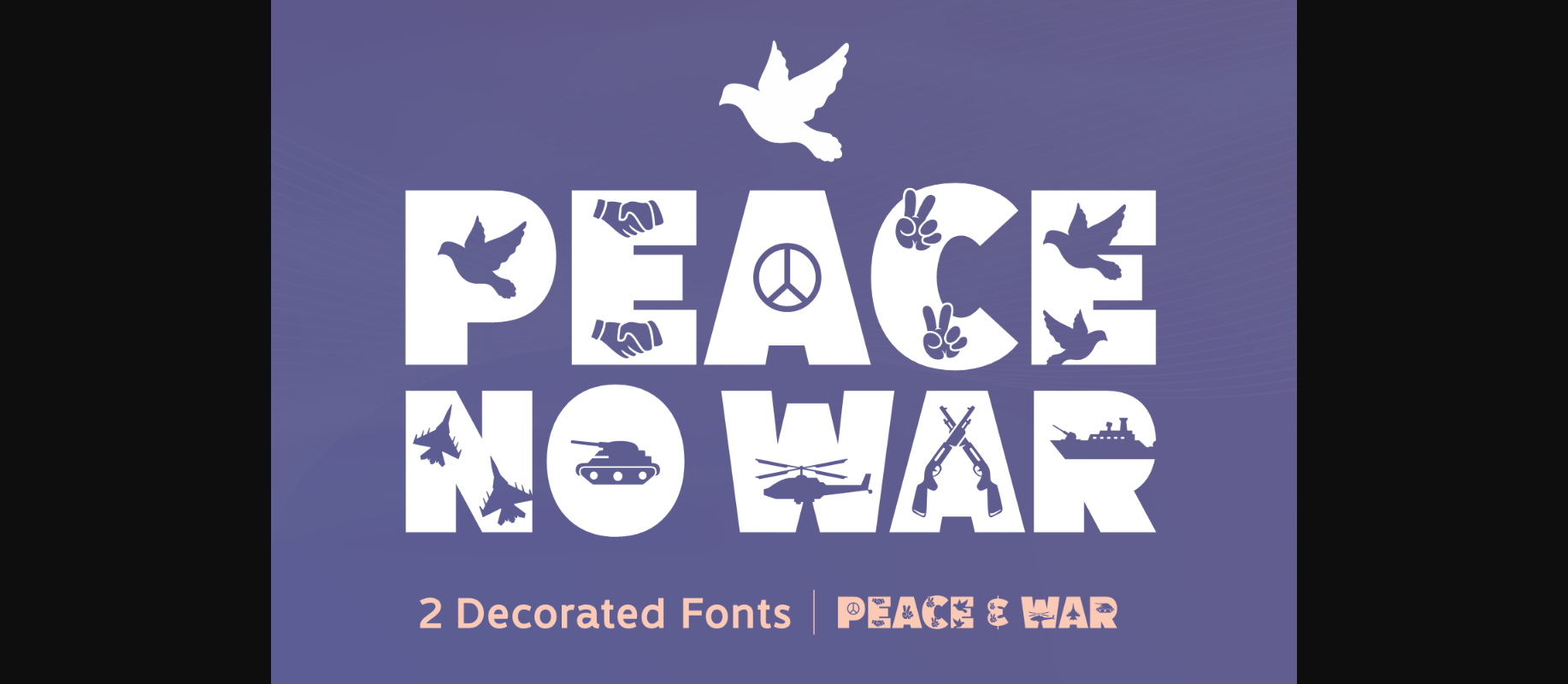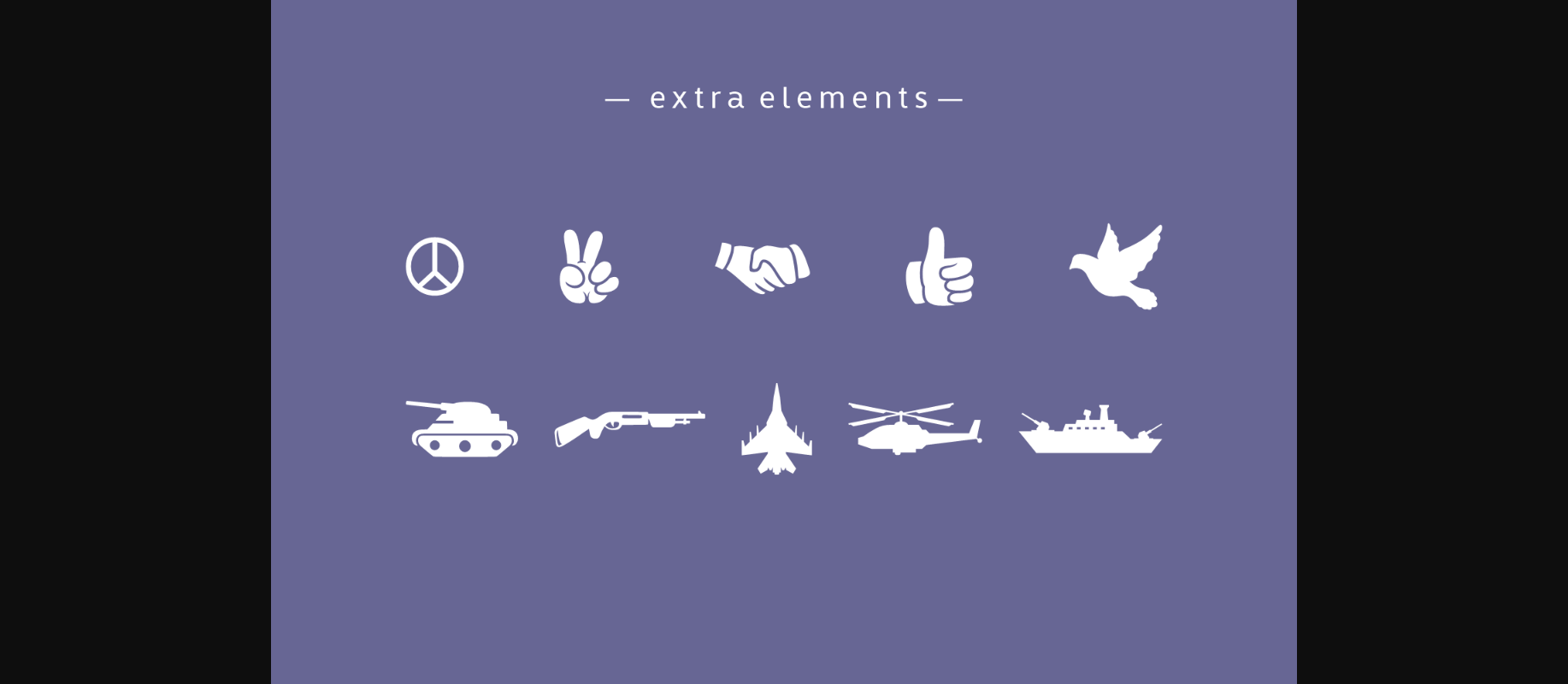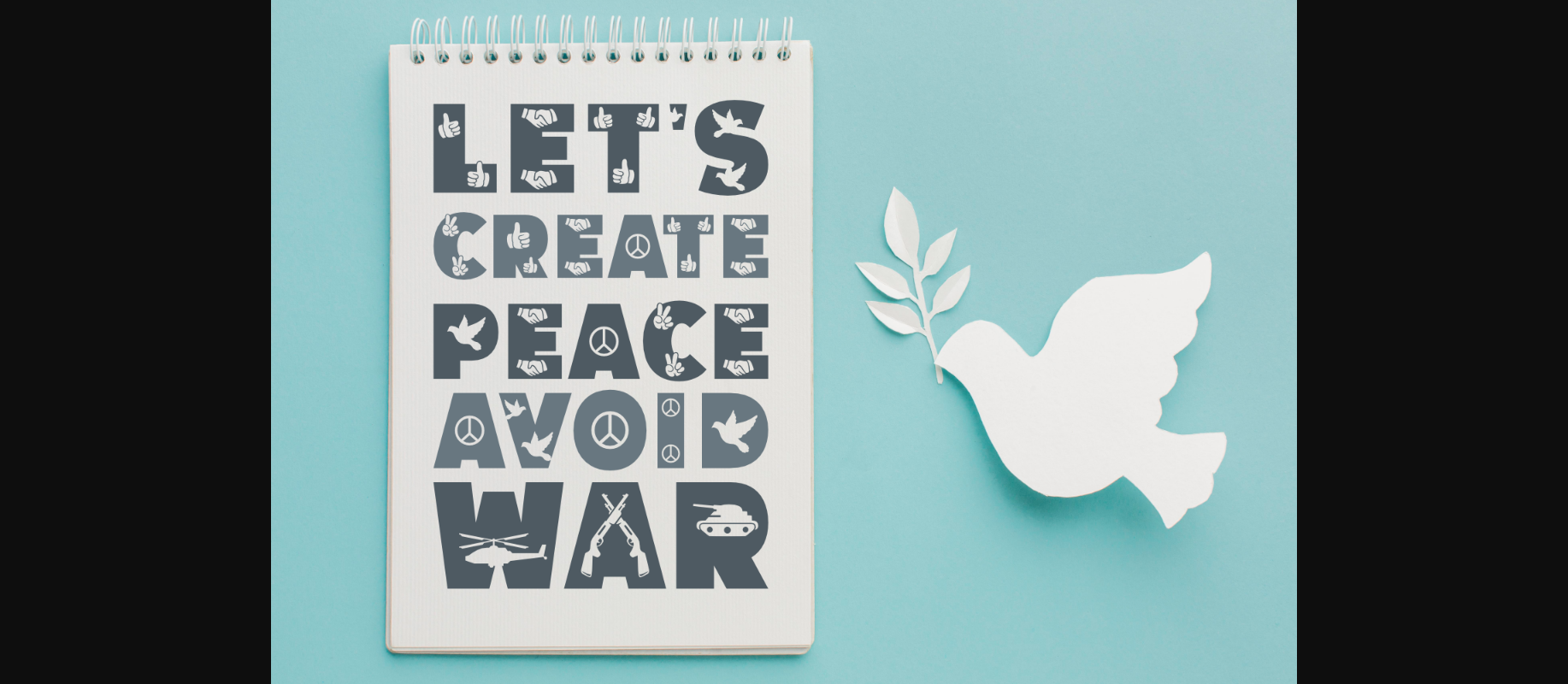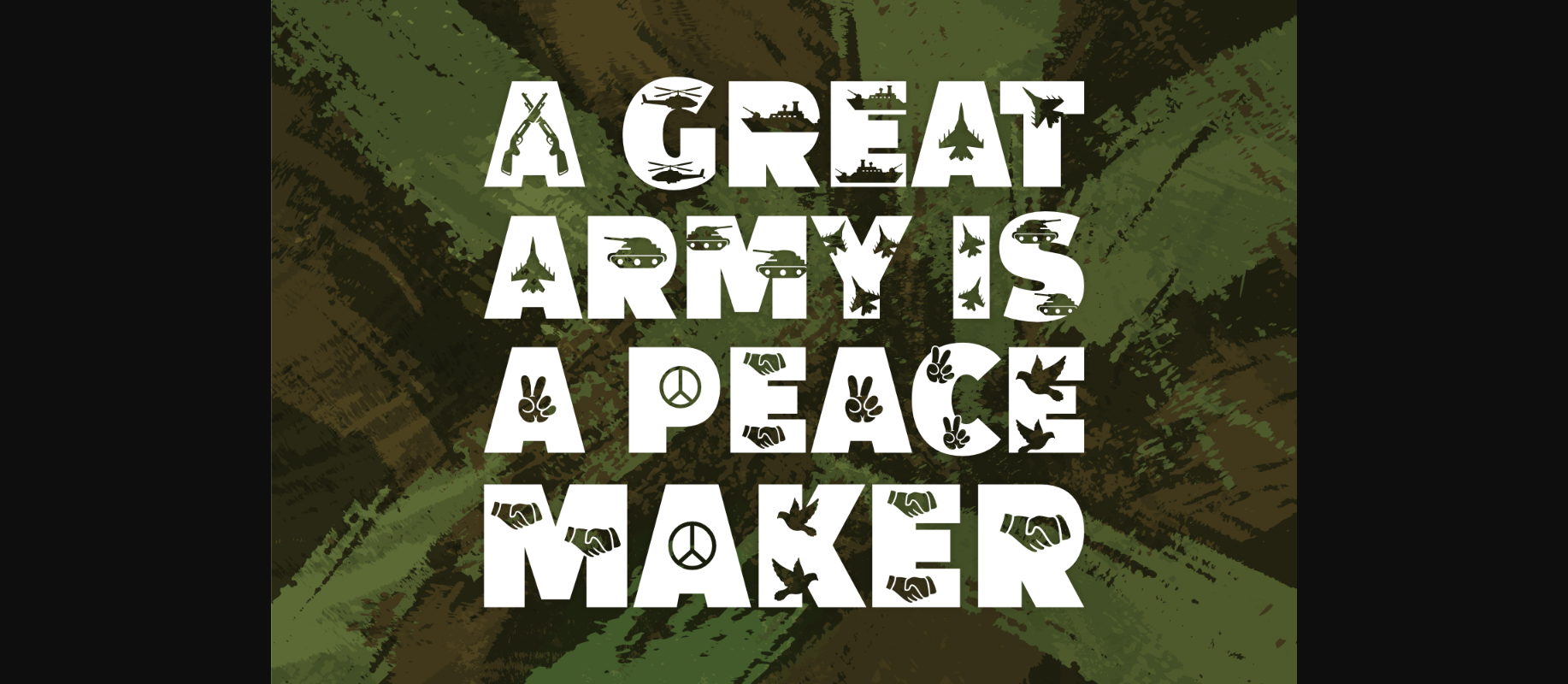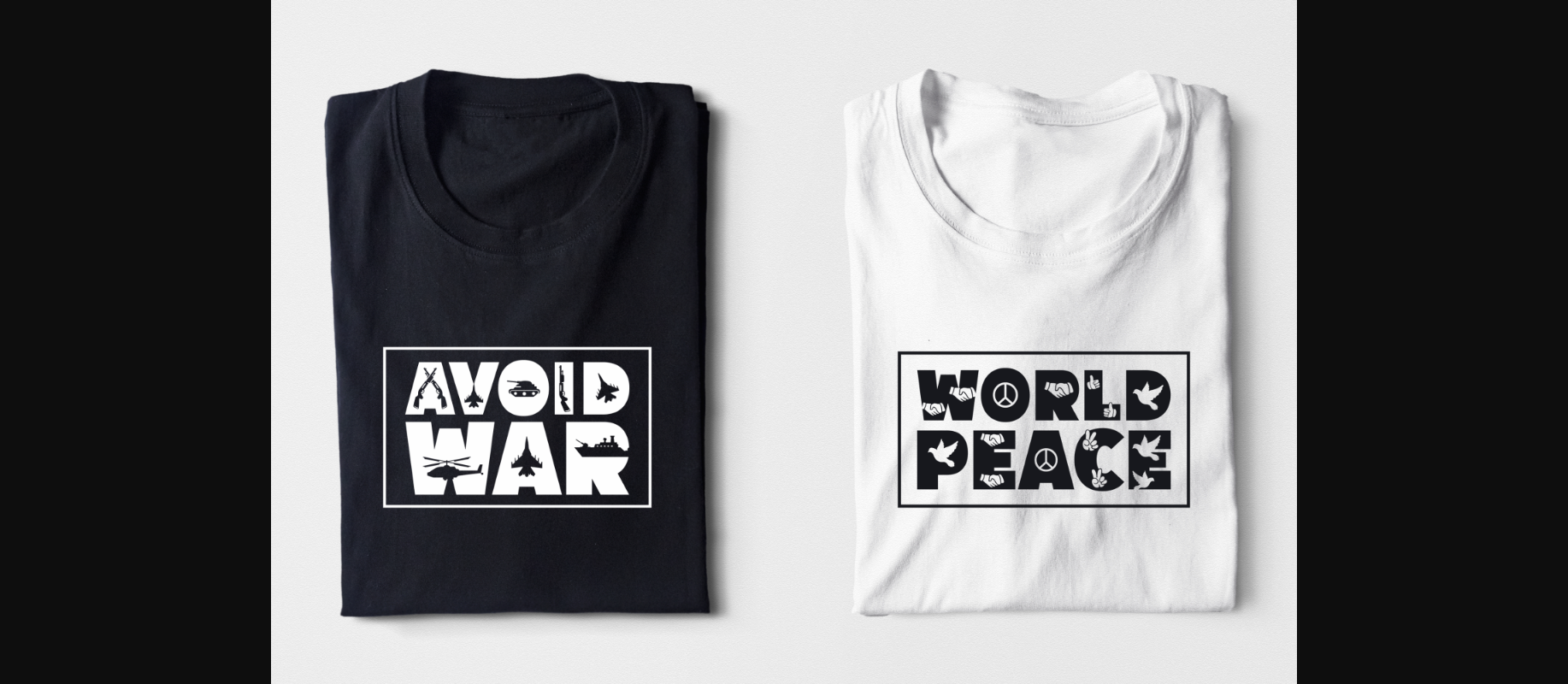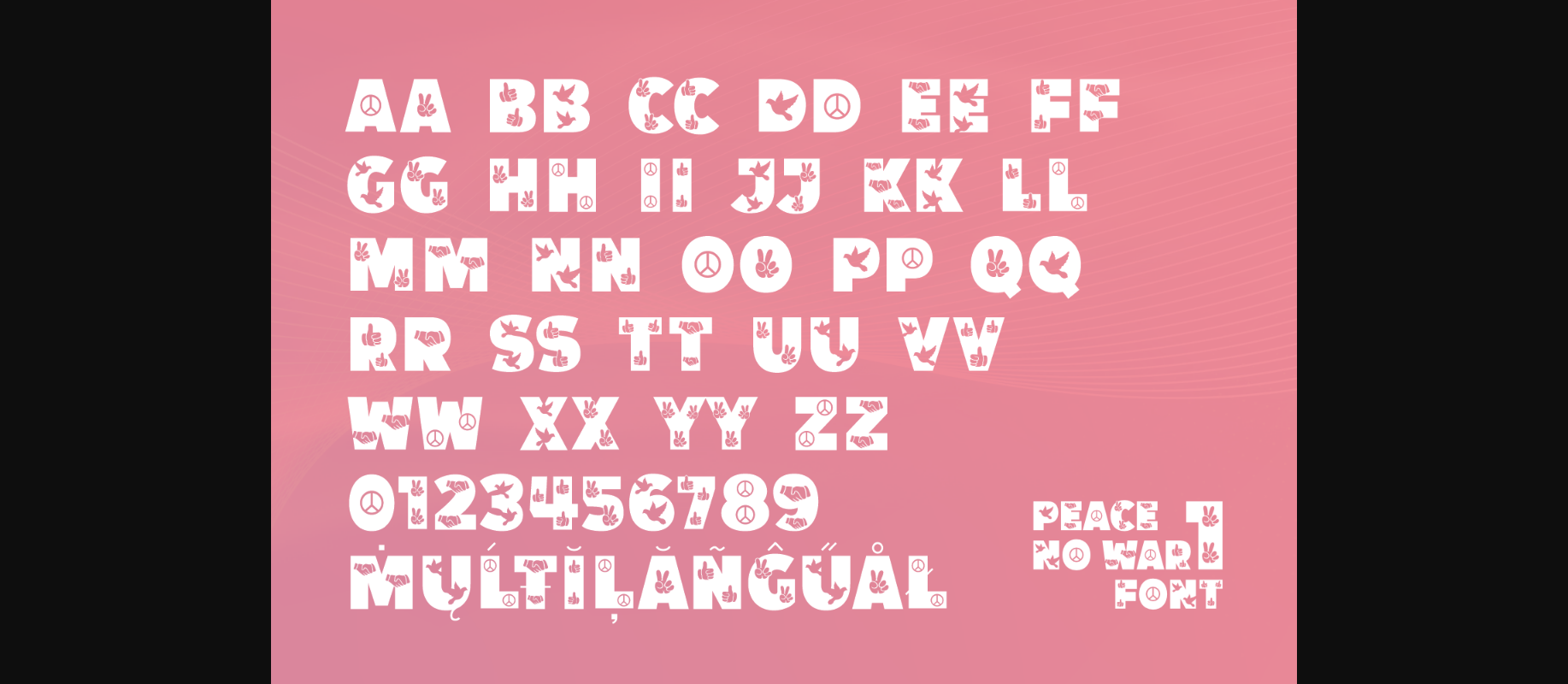
Peace No War Font
About Peace No War Font
Peace No War consists of two unique, bold and cool decorative fonts. It is suitable for book texts, documentation, business reports, business correspondence, magazines, newspapers, posters, advertisements, multimedia, and corporate design.